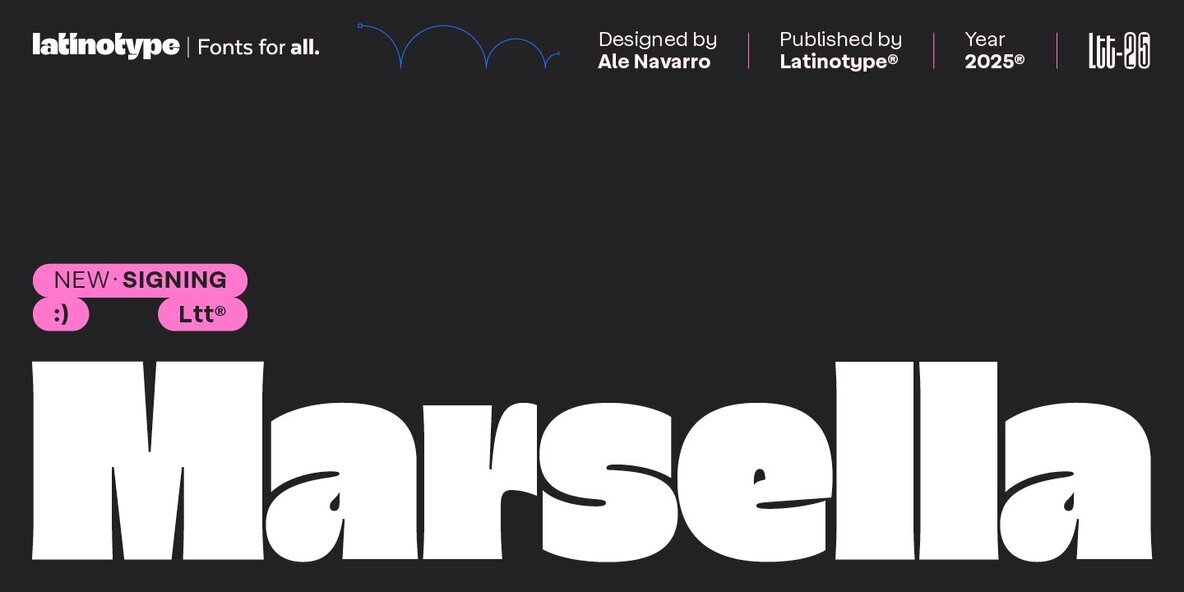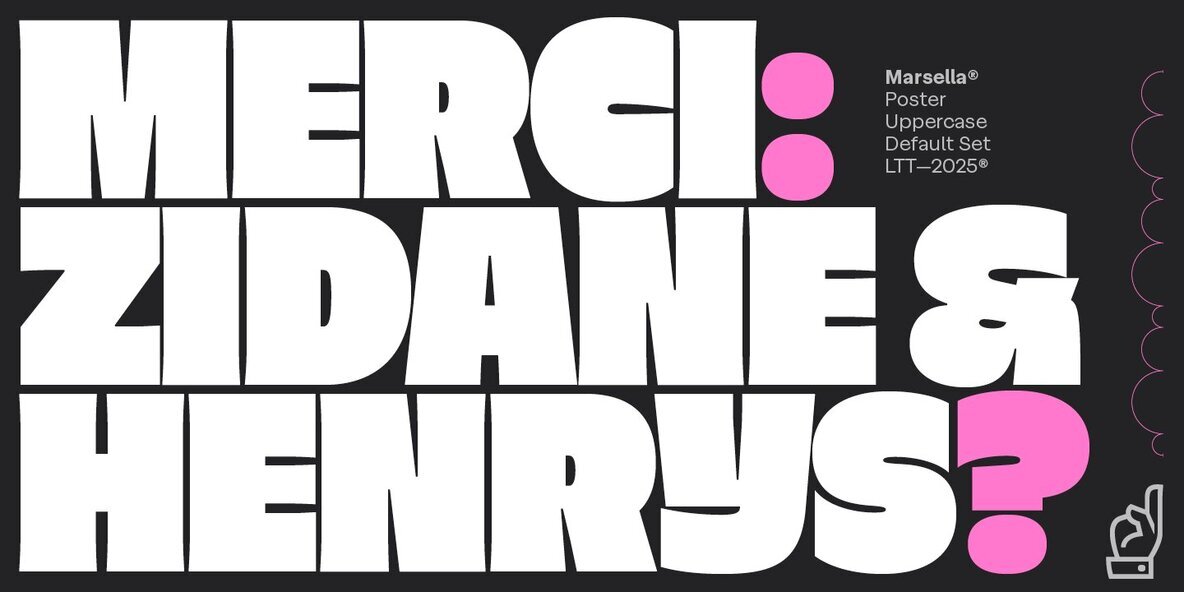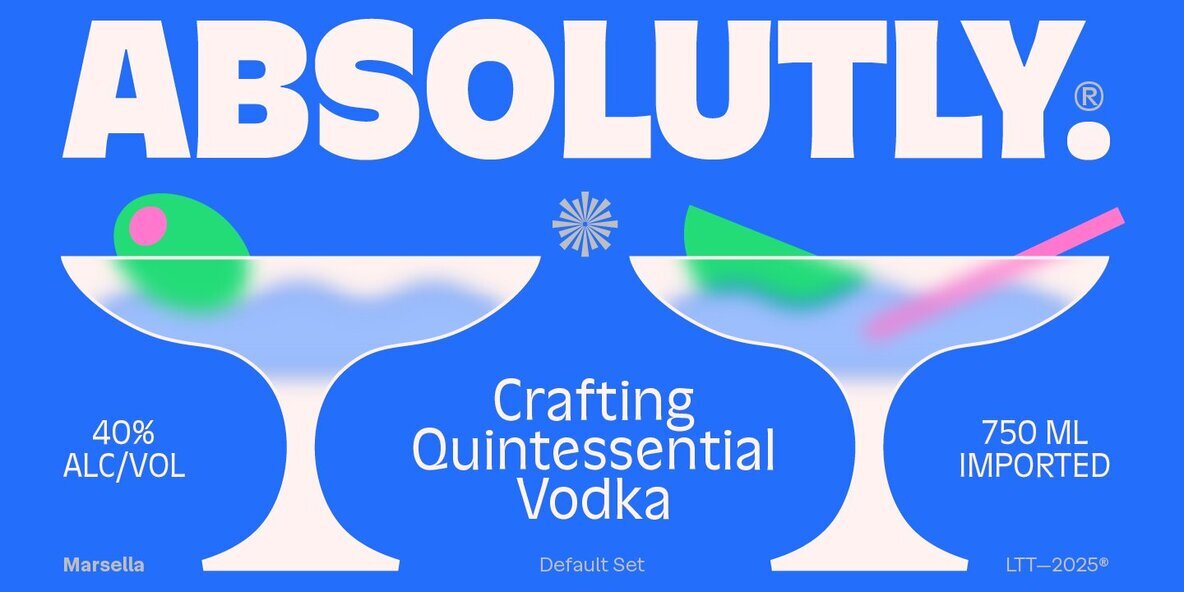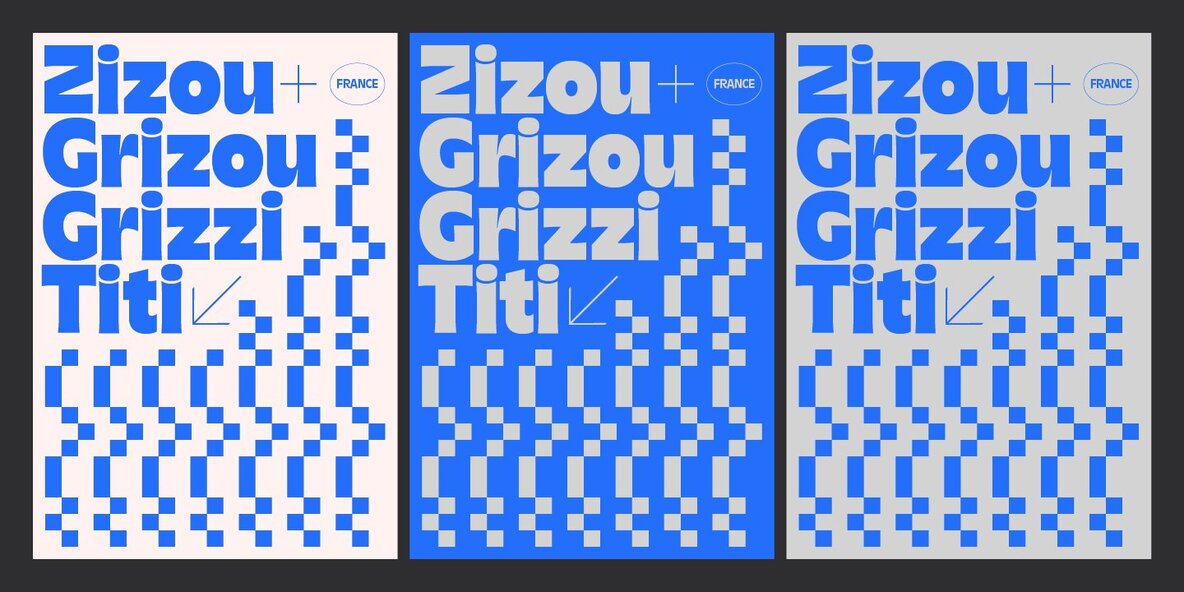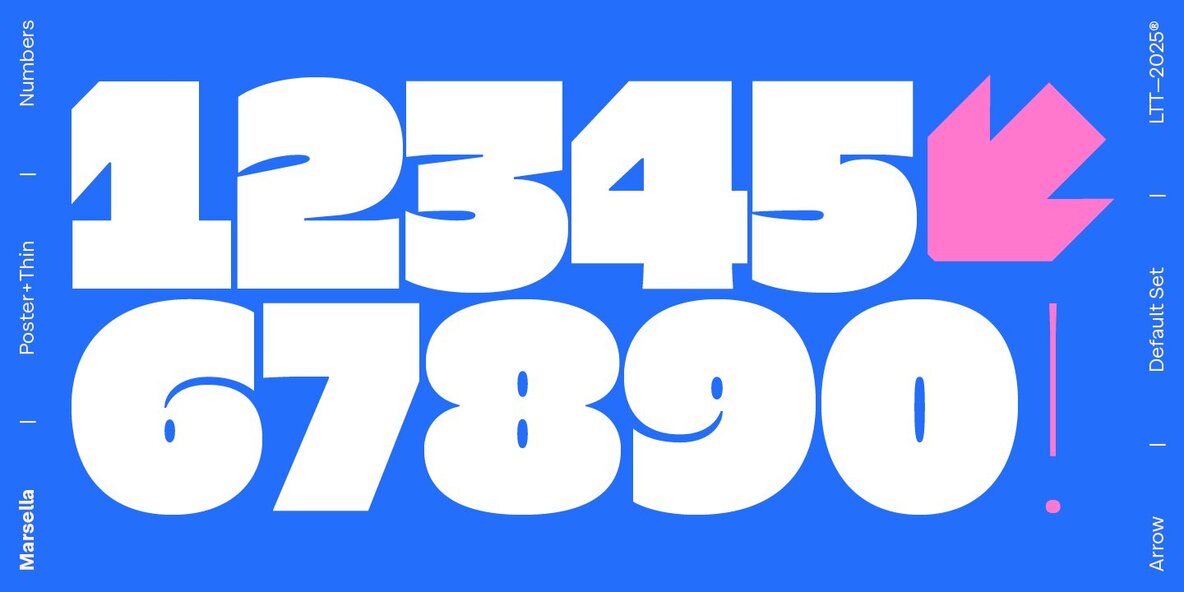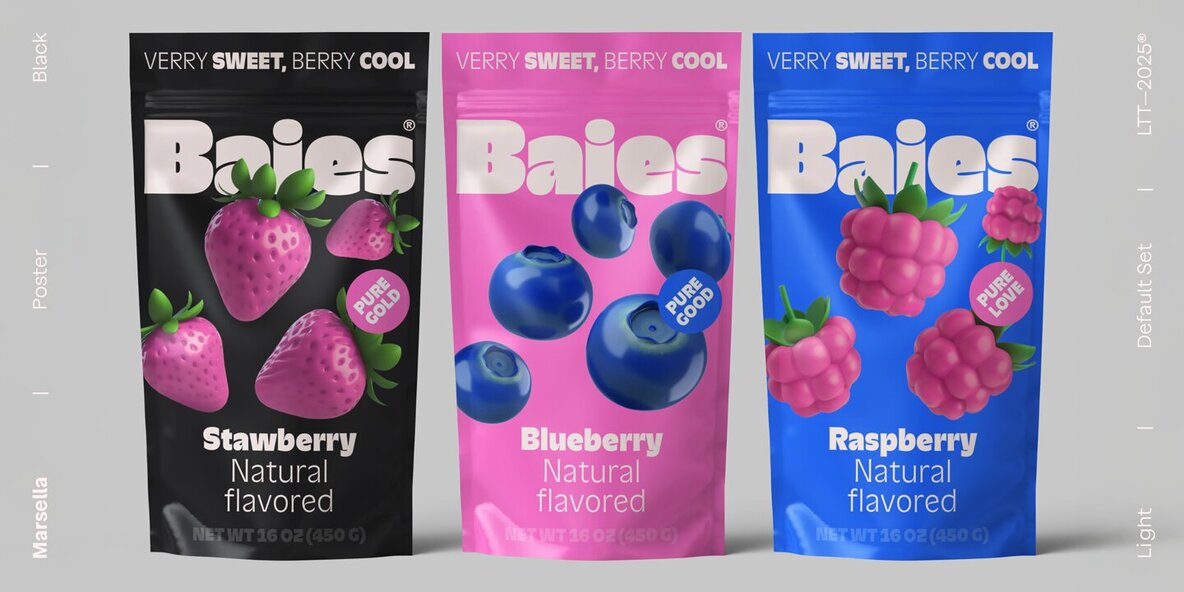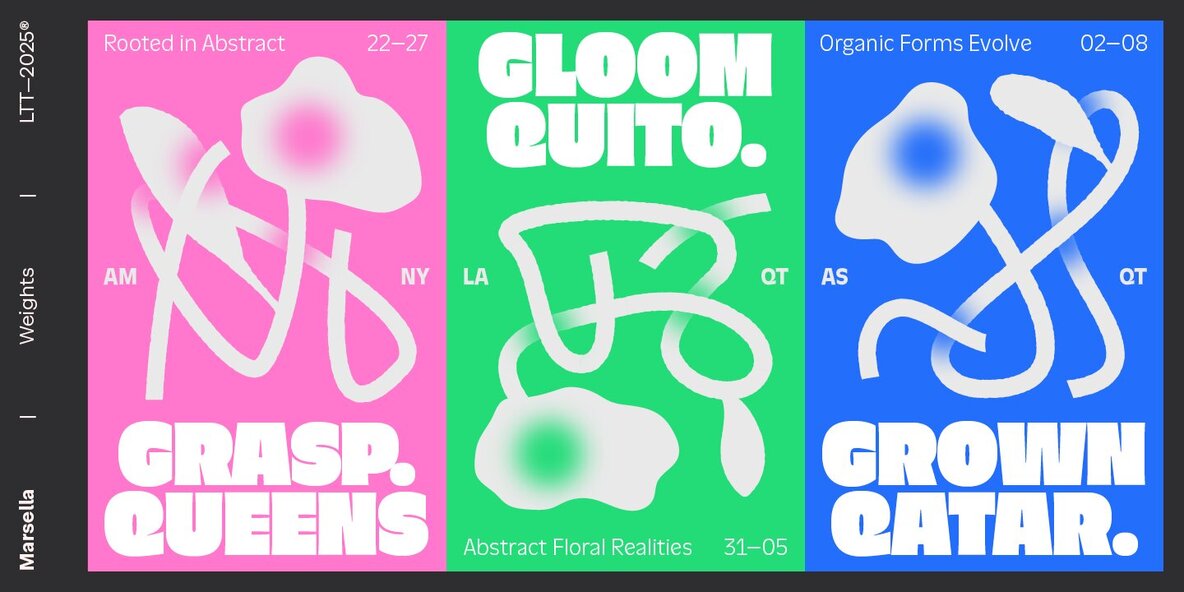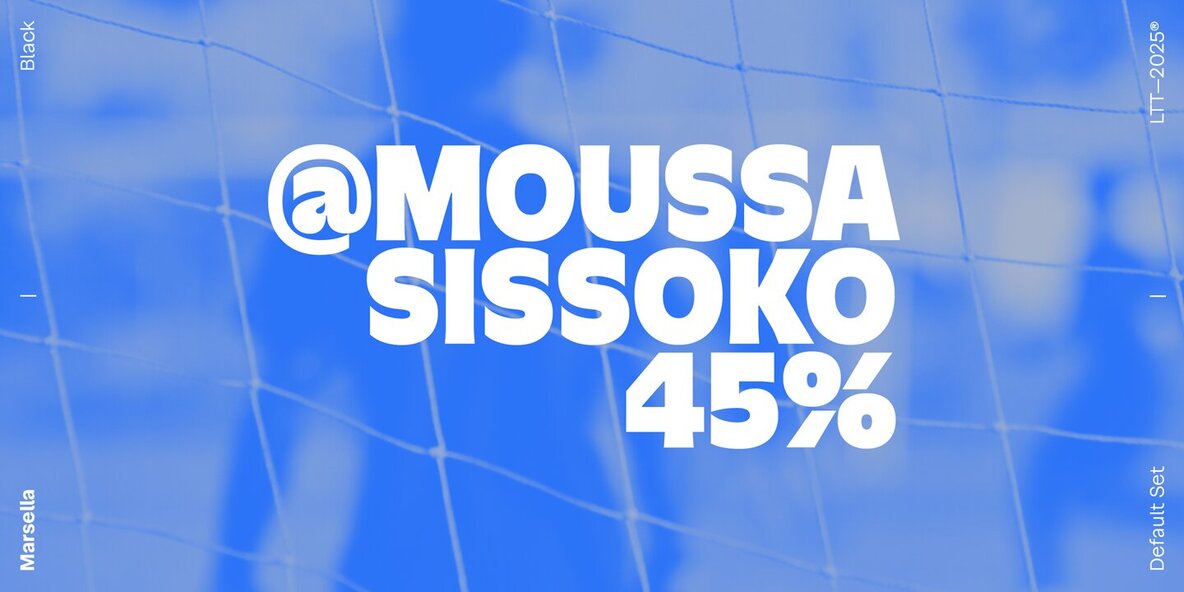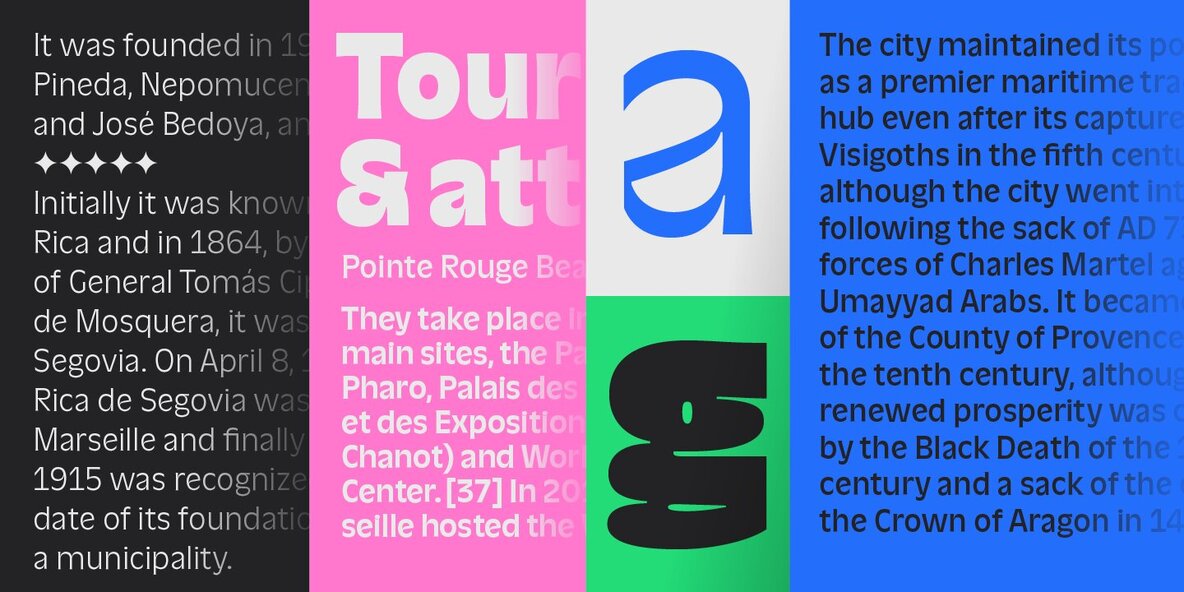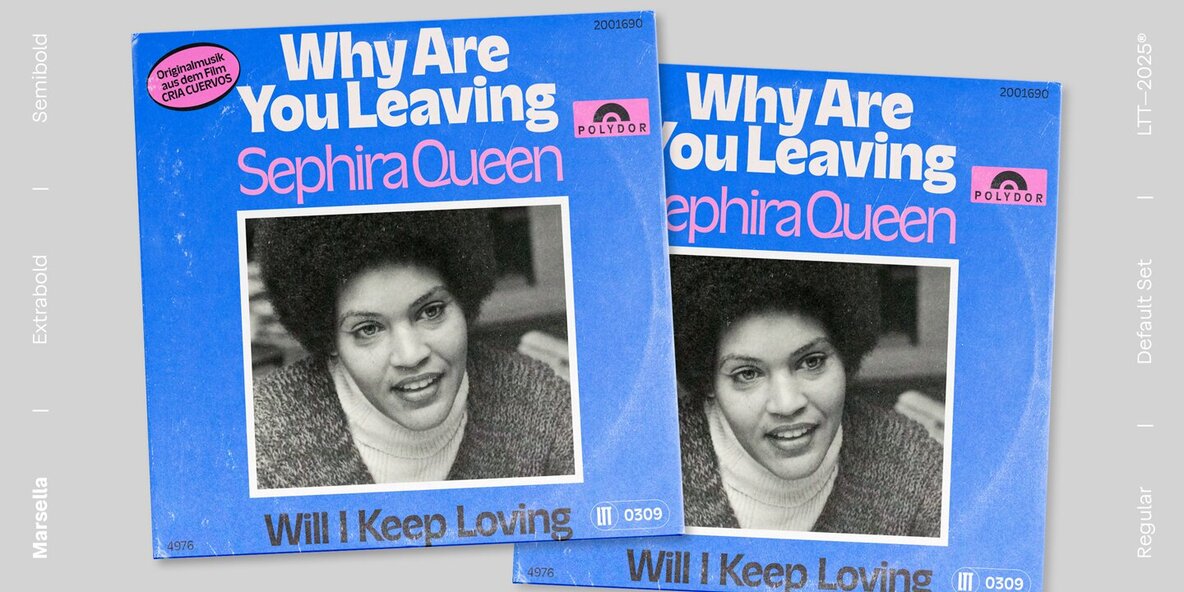
Marsella Font
Marsella is a typeface that thoughtfully revives the essence of French humanist fonts from the 1960s with a contemporary twist. Its generous x-height, delicate serifs, and balanced proportions contribute to its refined, timeless aesthetic. With weights ranging from Thin to Black, along with a Poster variant, Marsella adeptly supports both expansive and compact design contexts. Featuring alternative glyphs, this typeface enhances visual flow and harmony, making it highly versatile. With a repertoire of 575 glyphs, Marsella invites extensive creativity in detailed design work.Marsella: Reviving French Humanist Typography
Versatility and Detail